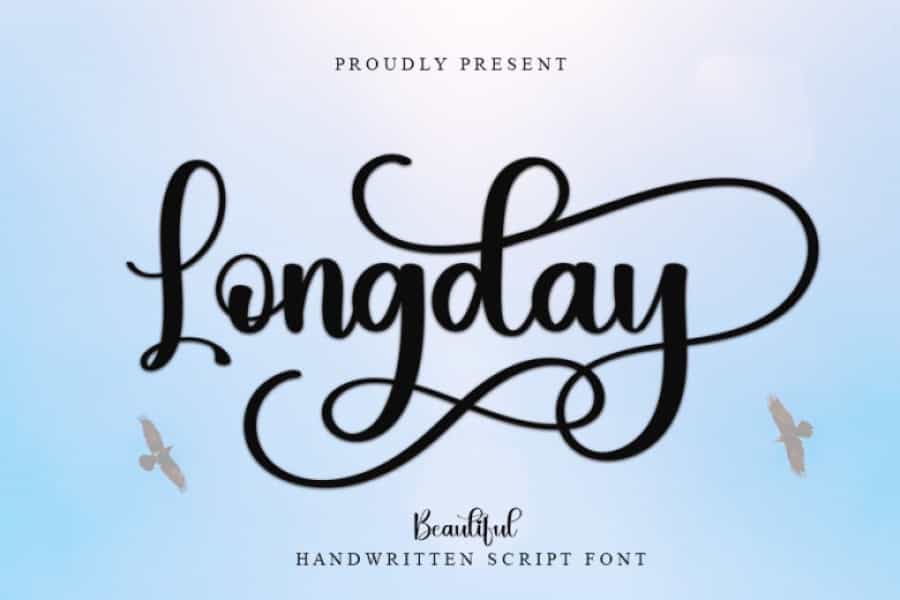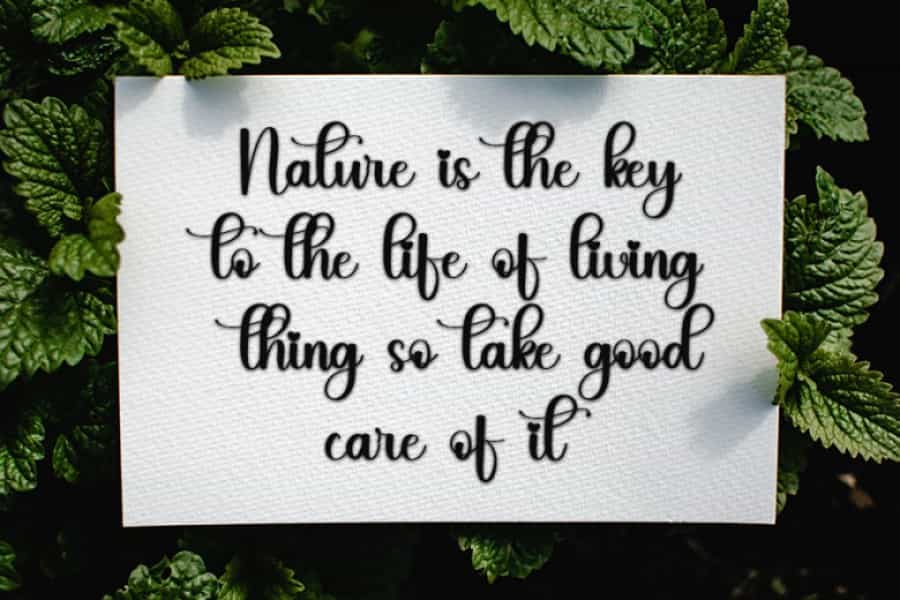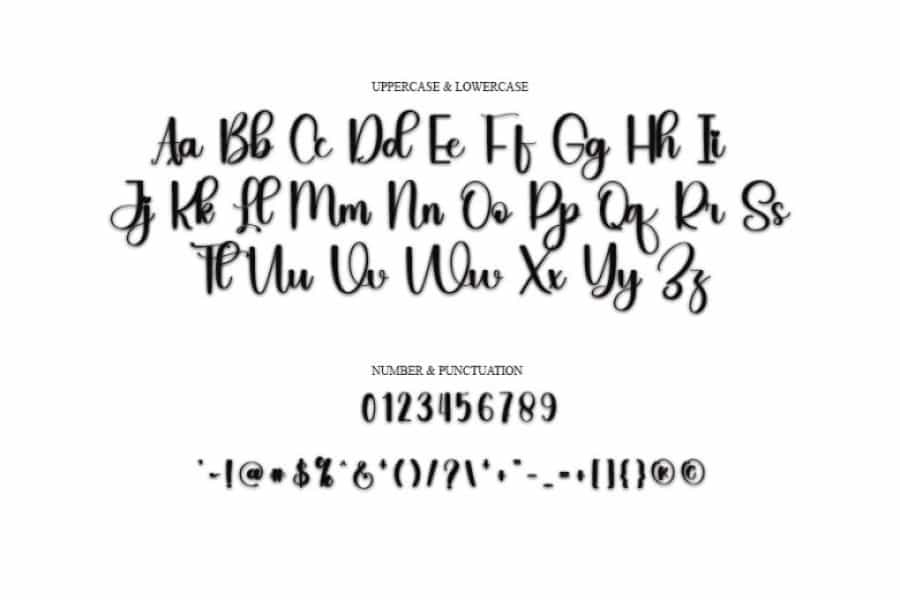
Longday is an exquisite script calligraphy font designed specifically to suit creative applications such as logo design and business card production, book covers, title pages, headings, quotes and social media posts, fashion magazine pages and fashion blog articles.